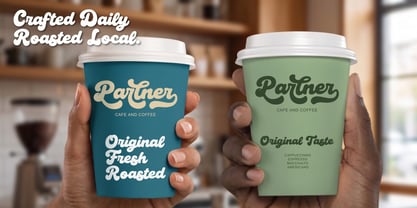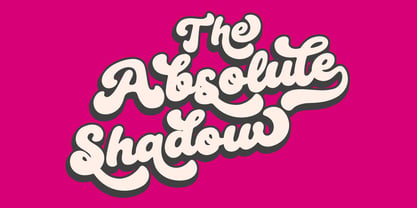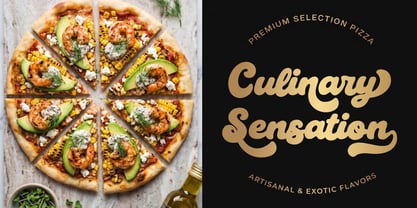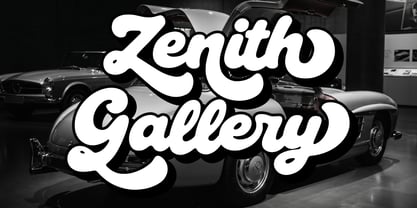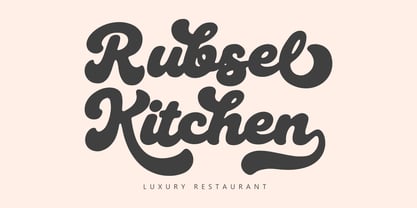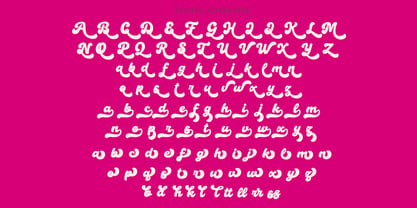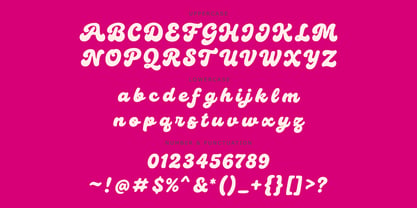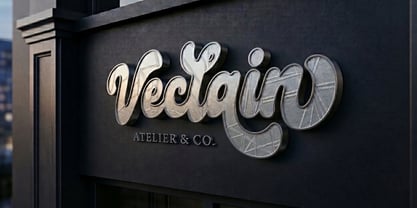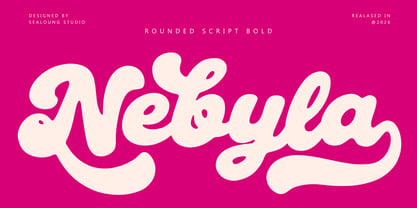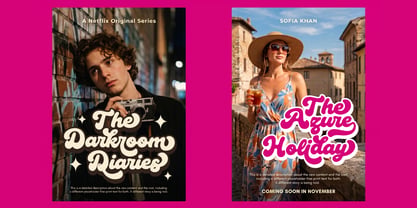
Nebyla
Nebyla Font is a bold rounded script typeface that blends playful softness with strong visual impact. Designed with thick, smooth curves and a confident flow, Nebyla delivers a modern retro feel that instantly catches attention while remaining friendly and highly readable.
Every letter is carefully shaped to create natural connections and seamless rhythm, making it perfect for designs that need both personality and clarity. Its chunky strokes and rounded terminals give it a warm, inviting tone, while the bold structure ensures it stands out across both digital and print media.
Nebyla carries a stylish, expressive character ideal for brands that want to appear approachable yet distinctive. Whether used large for headlines or scaled down for supporting text, it maintains consistency and charm.
• Smooth Connections